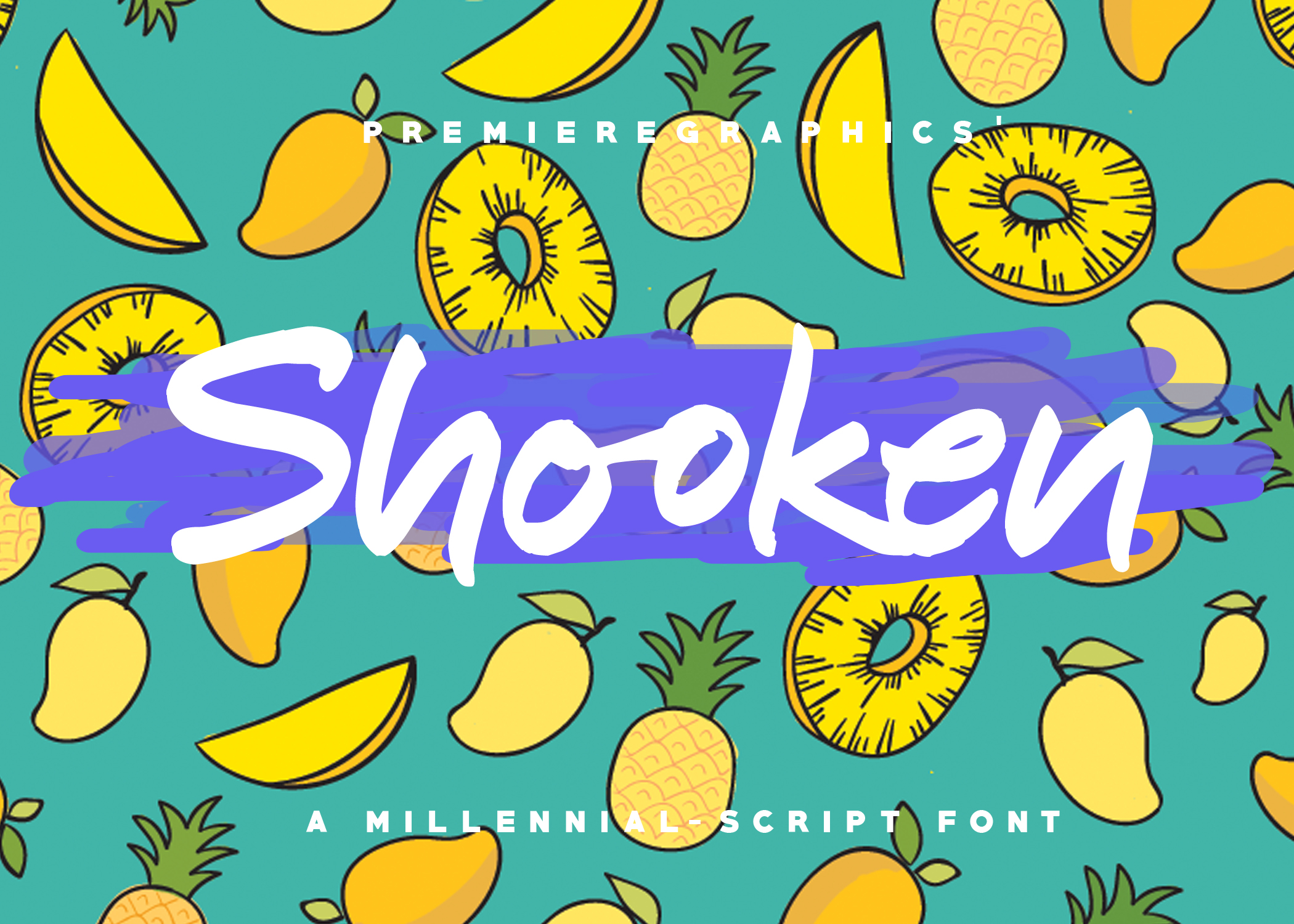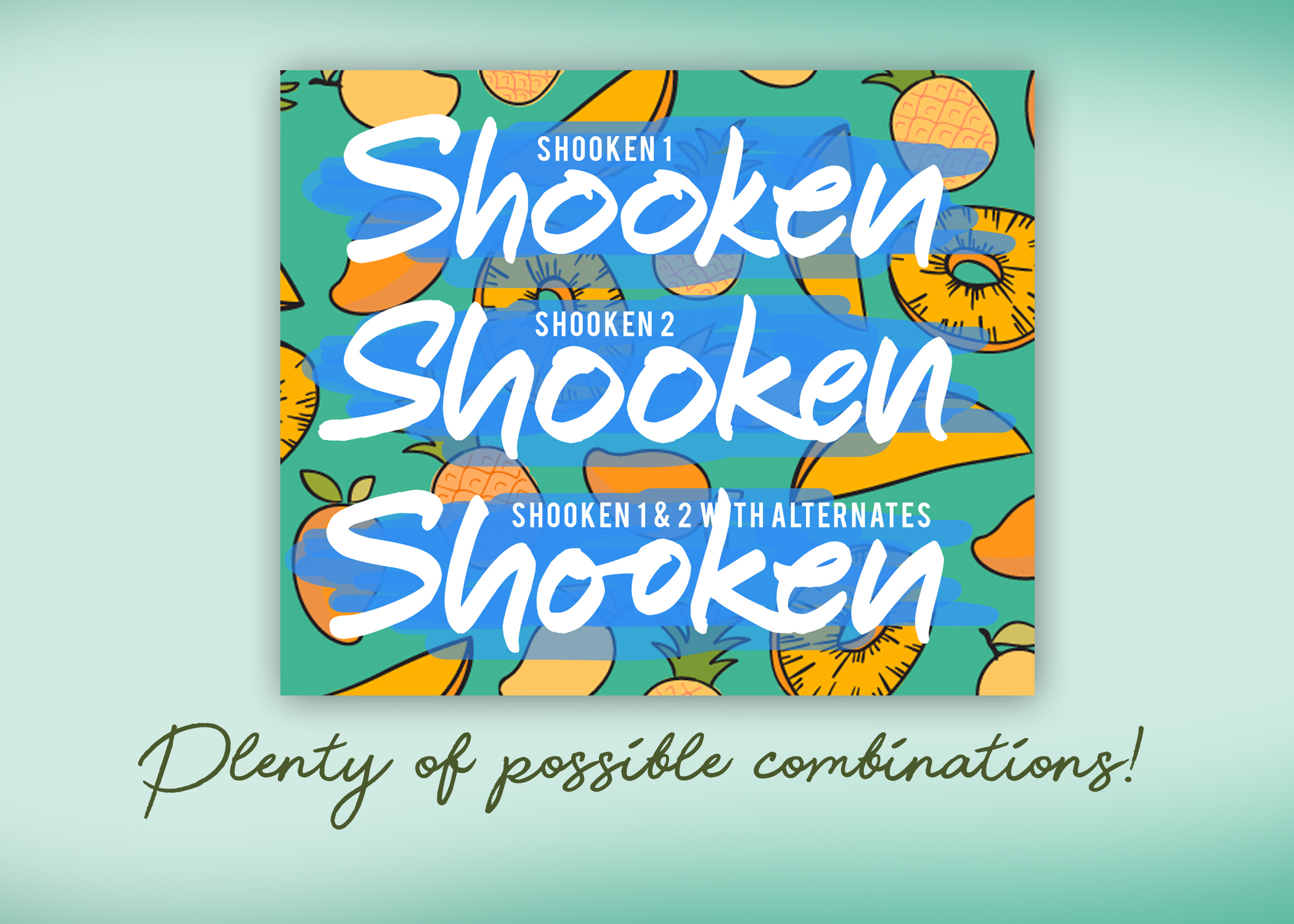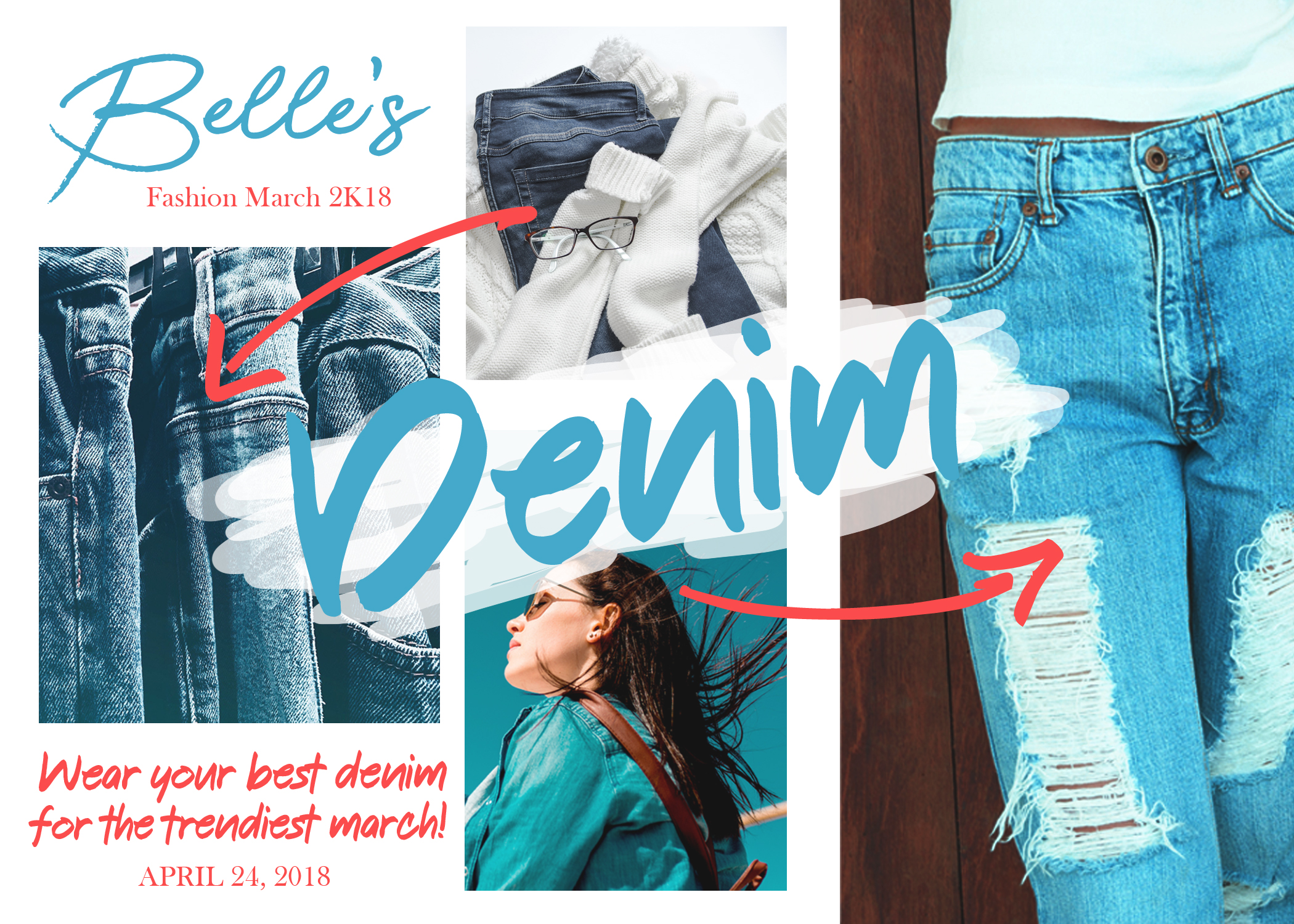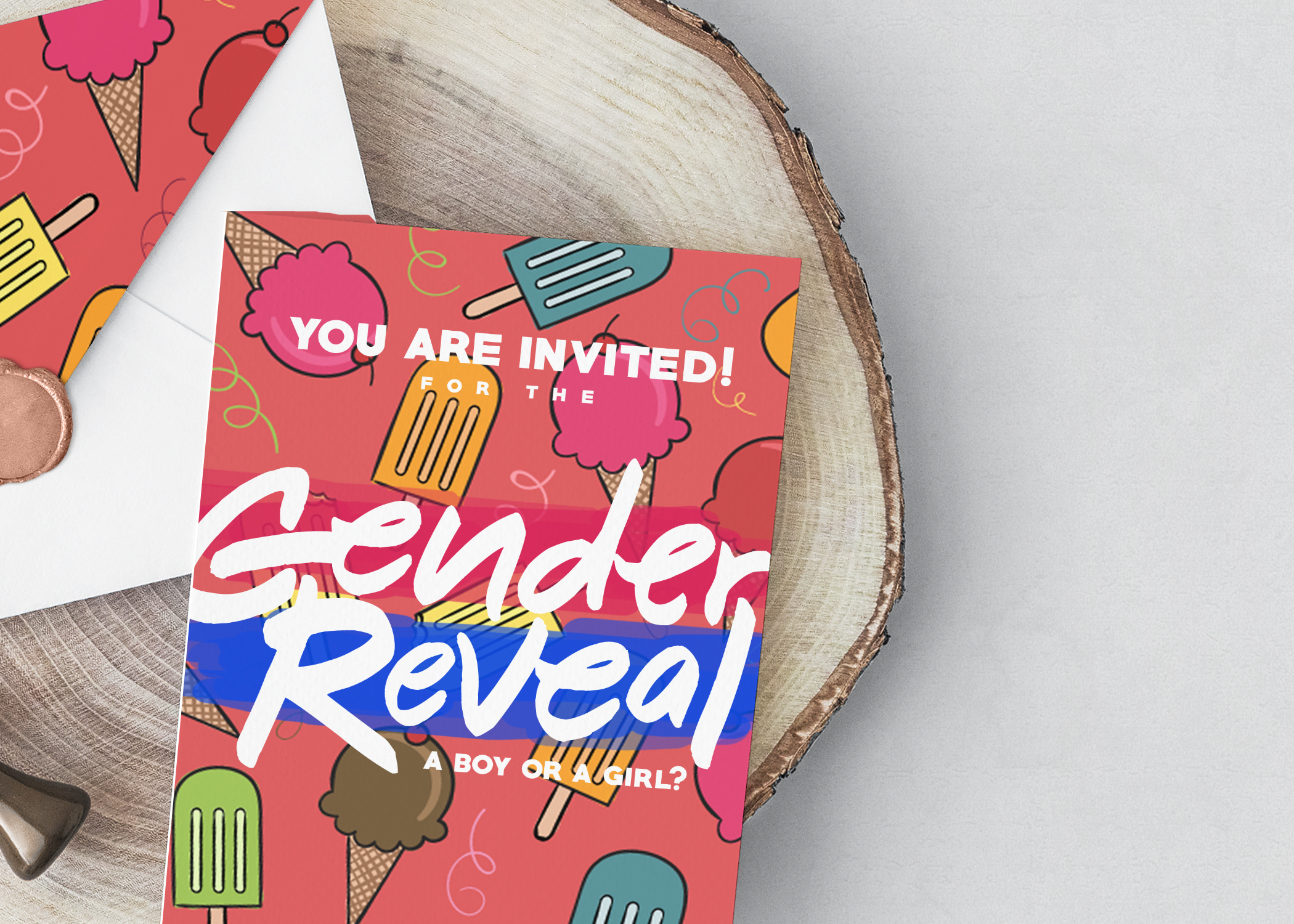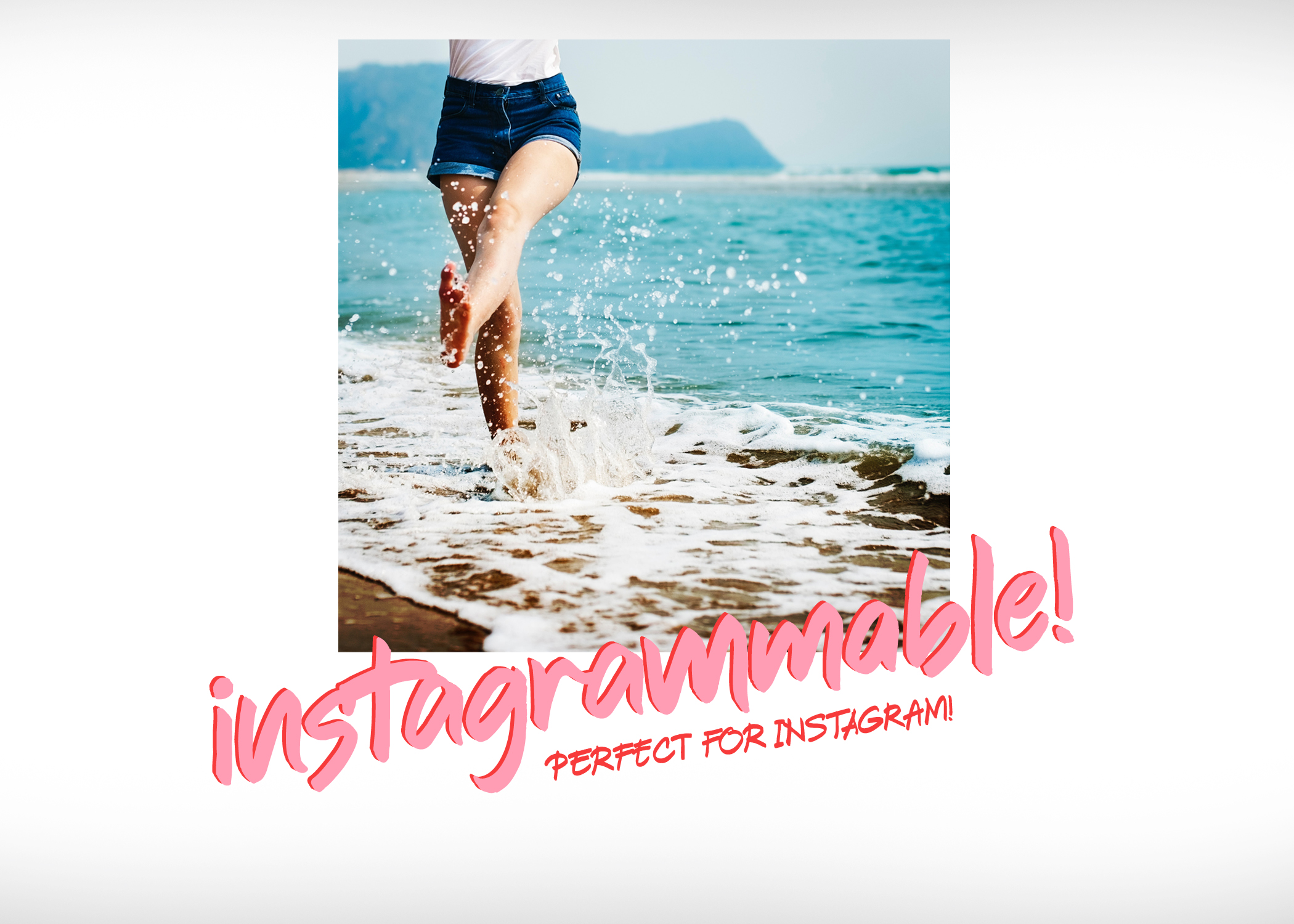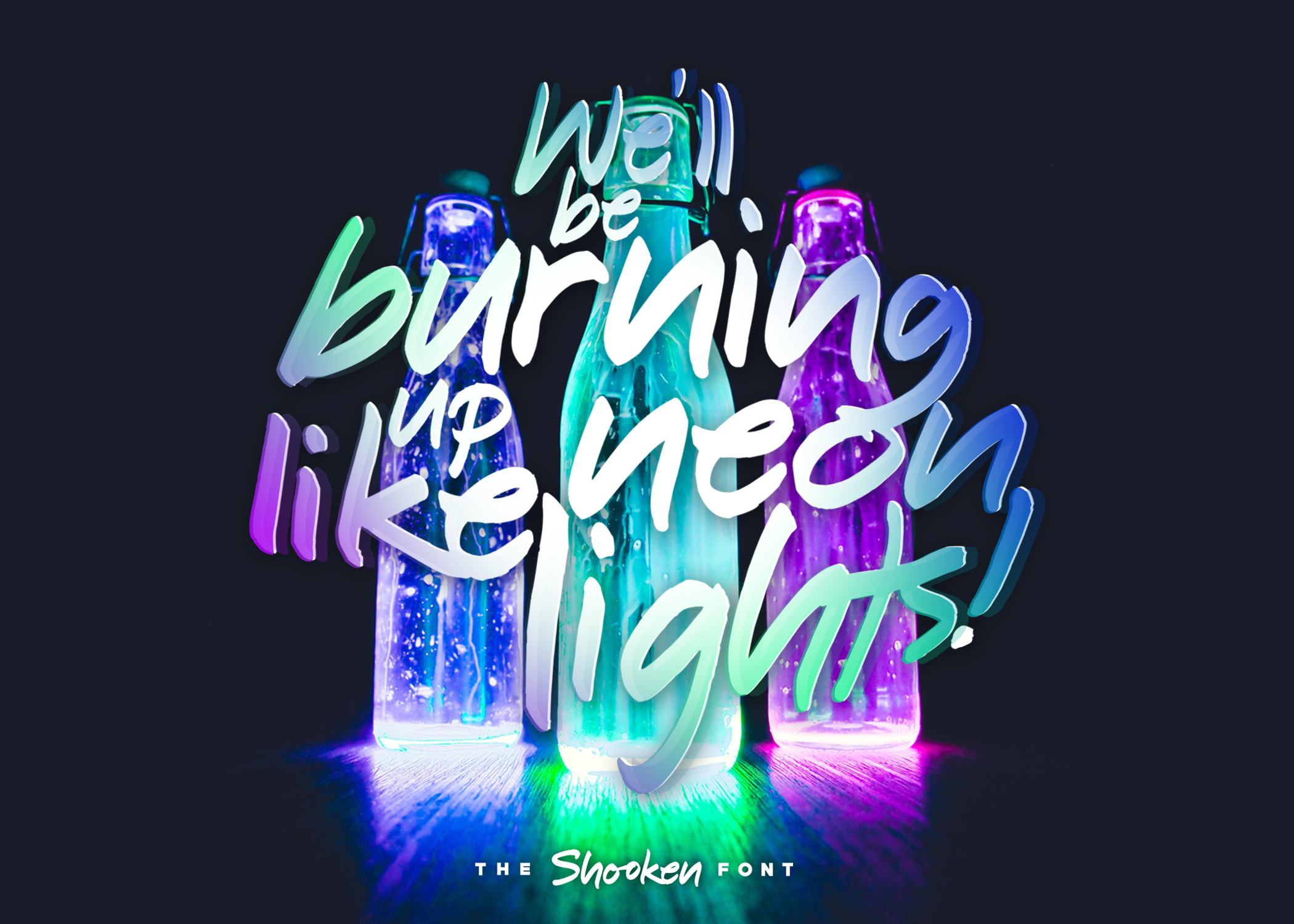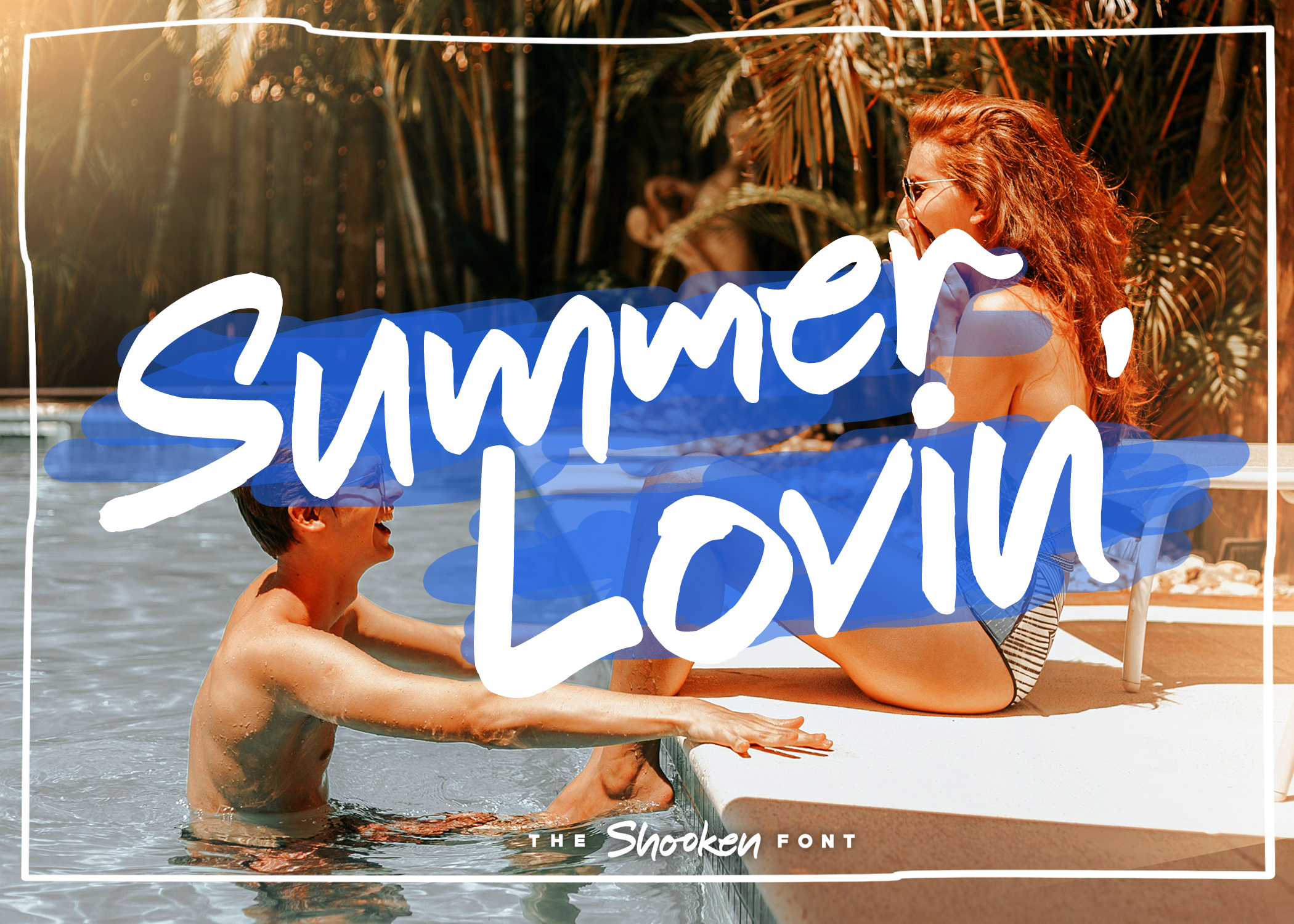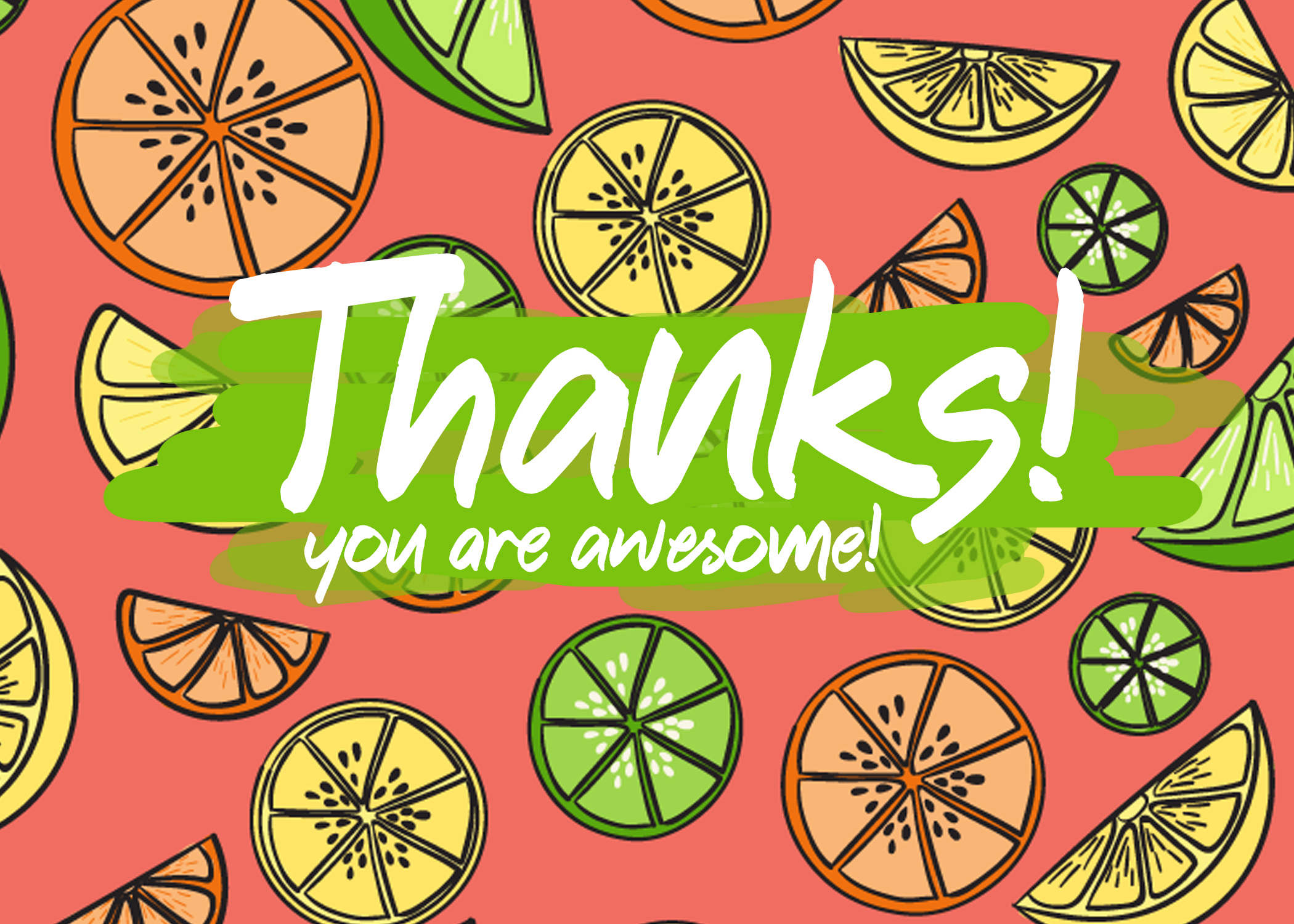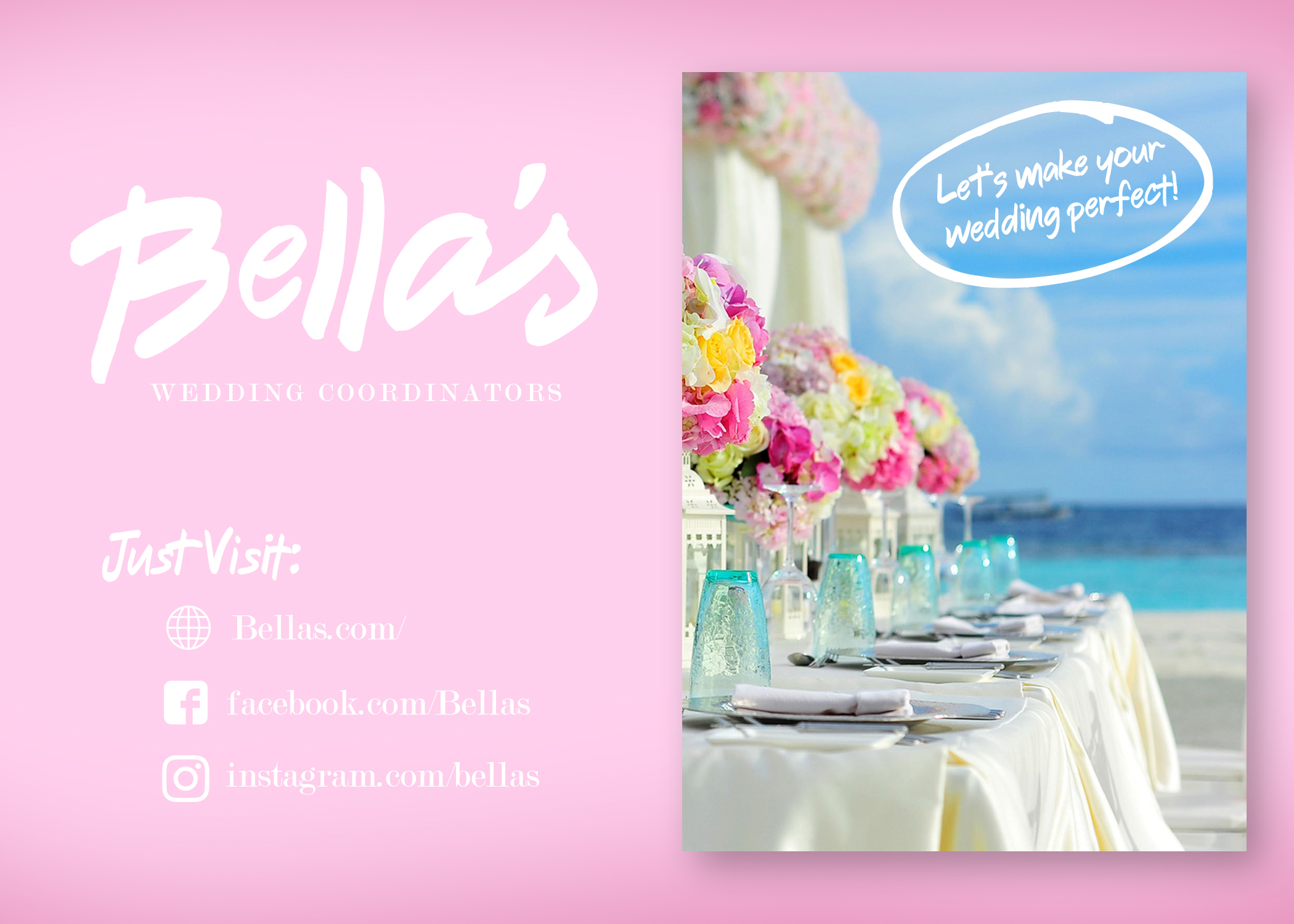
Shooken Font
About Shooken Font
Shooketh to the core! Shooken font is inspired from the new millennial slang, shook, which obviously means shocked or surprised. Like this font, it will surprise you with what it can do! It can be a cartoonish font or can be a serious but playful logo for your company. It is made to be a perfect fit for the millennial trend these days.